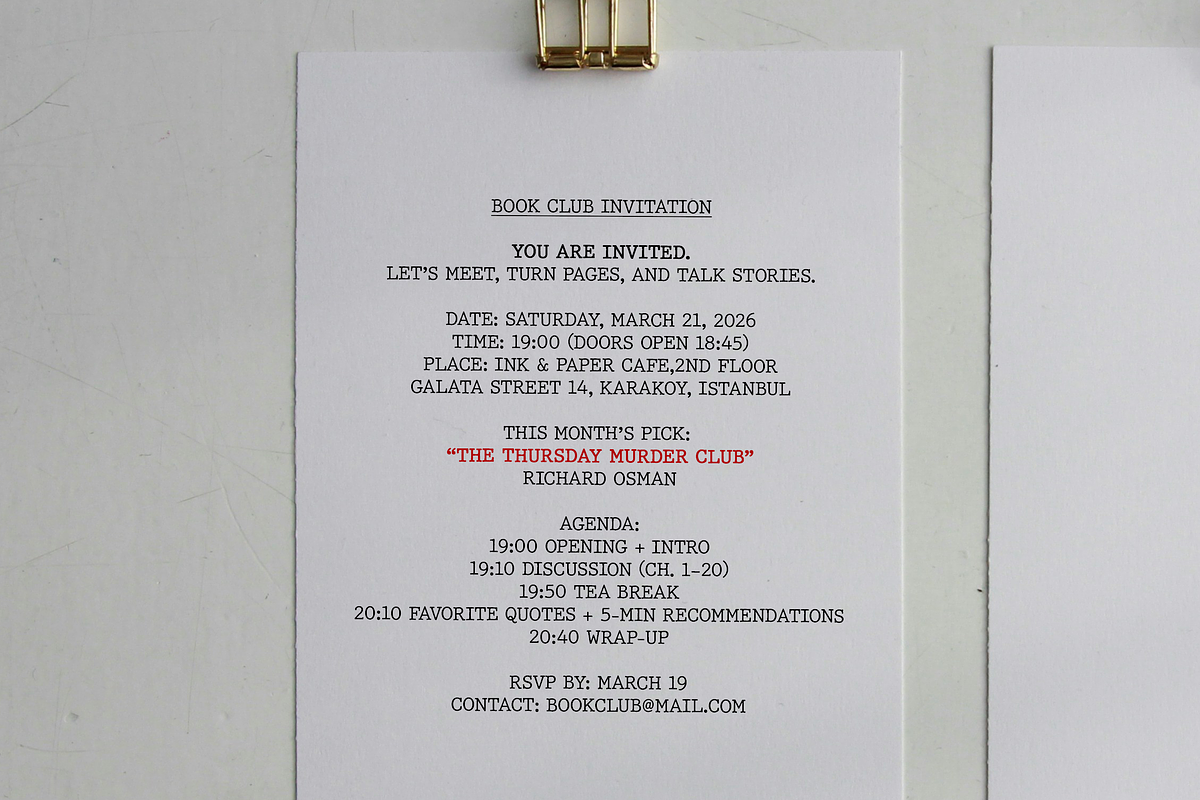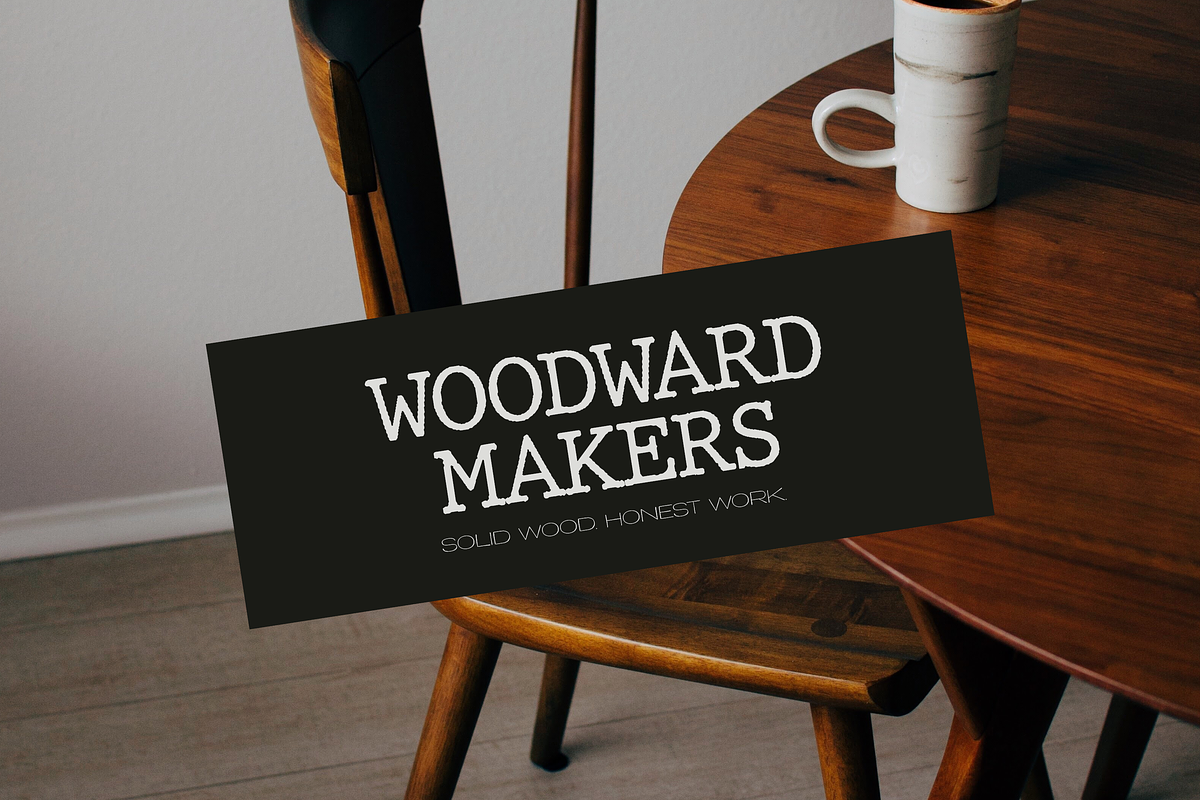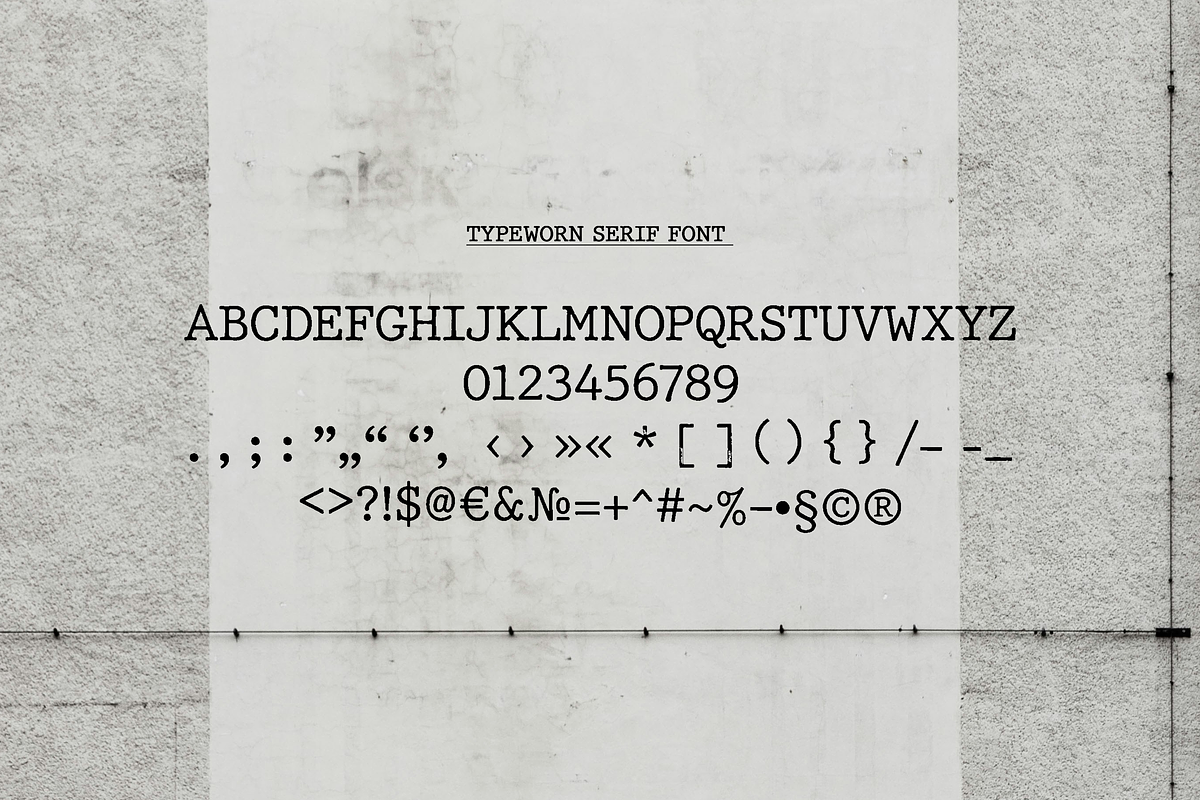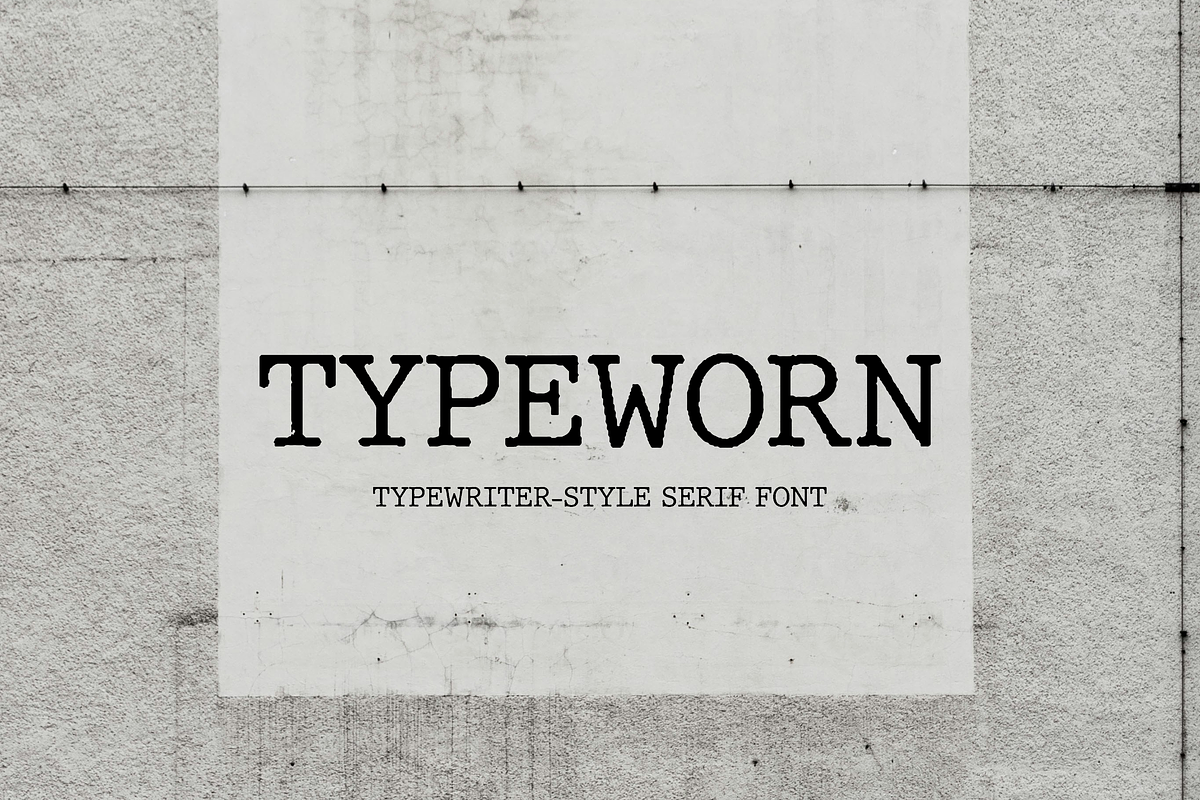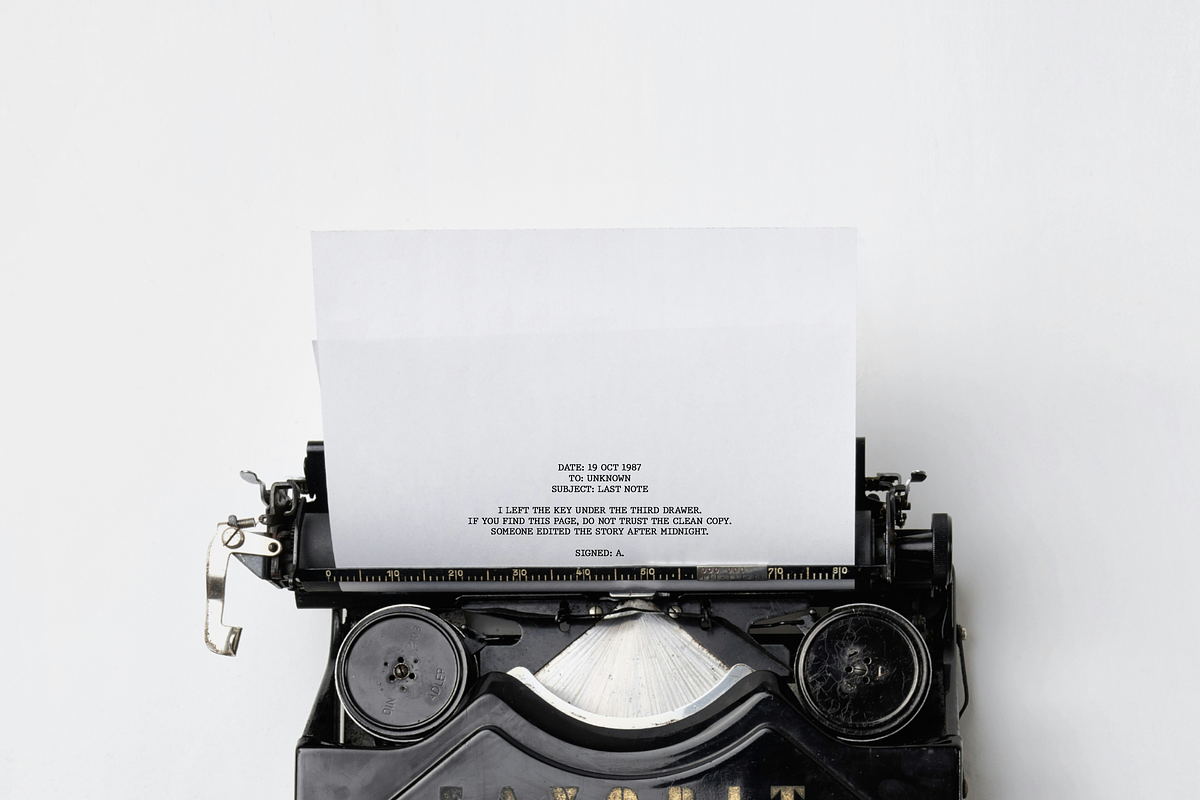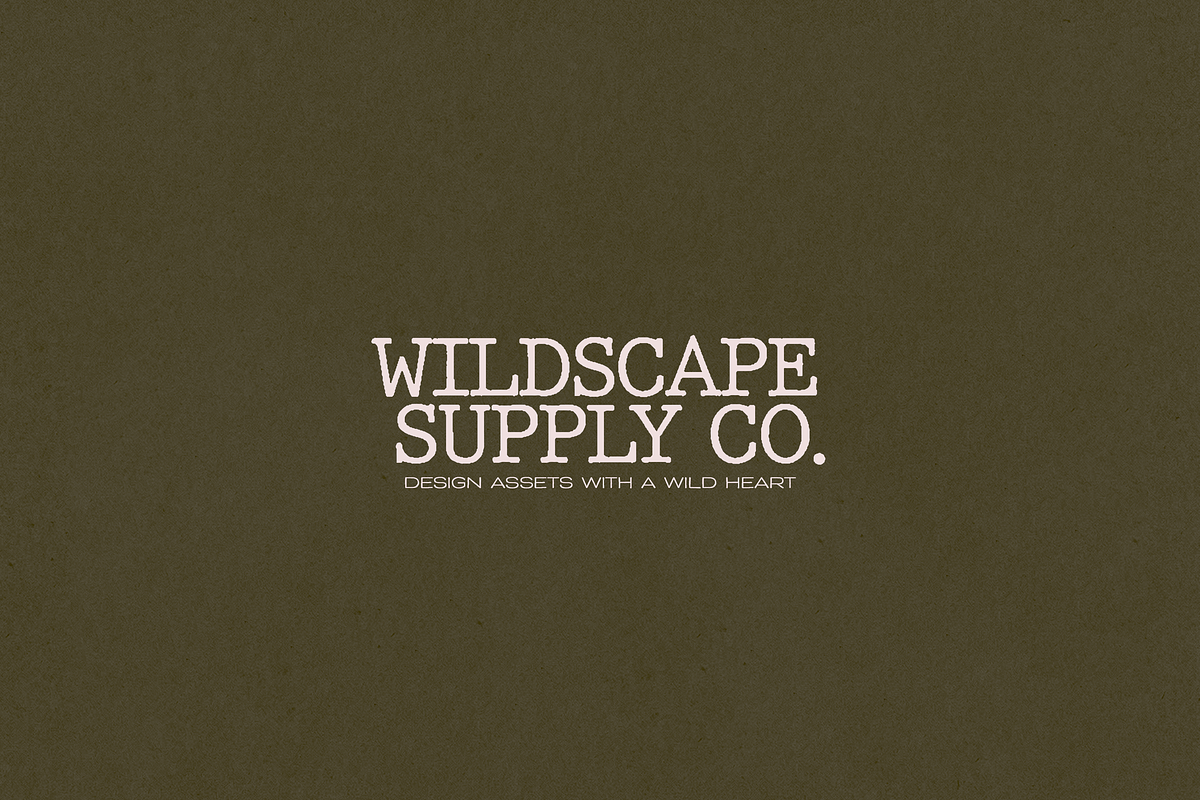
TypeWorn Typewriter-style Font
TypeWorn is a vintage typewriter-style serif font with a naturally worn, ink-stamped texture. Perfect for retro headlines, editorial layouts, posters, and book cover typography.
Perfect for • Logos & branding • Posters & flyers • Book covers & quotes • Packaging, labels & menus • Social media graphics